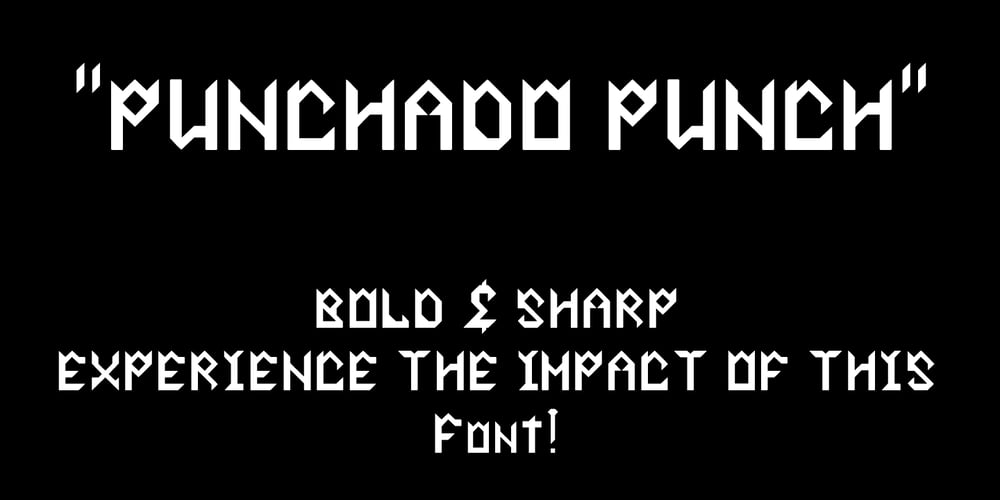
Punchado Punch Font Family was designed by Ted Lau and published by MyAnvil. Punchado Punch contains 1 styles and family package options. This font was inspired by the original “Punchado” font; and this evolved font is named the “Punchado Punch”. The “Punchado Punch” font features similar sharp edges and measured right angles with a greater impact of design . The theme of this font is perhaps best suited for: science, science fiction, engineering, mathematics, future, video games, gaming, computers, etc.